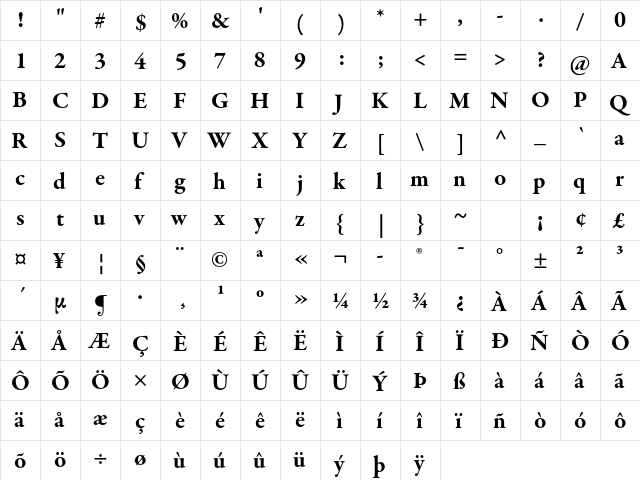
Garamond Premier Pro Bold Font Preview
Garamond Premier Pro Bold
| Designer | Robert Slimbach |
Design Context for Garamond Premier Pro Typeface
Garamond Premier Pro offers clean, dependable letterforms without strong stylistic allegiance, making it a practical choice for designers who need flexibility. Its bold stroke weight gives it real presence on the page.
Pro Tip: Use Garamond Premier Pro in both headline and body roles to test its range before committing to a single application.